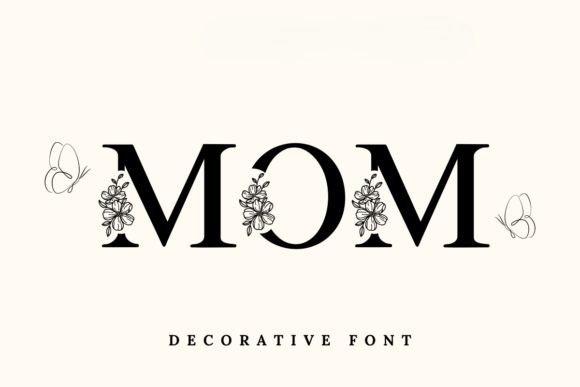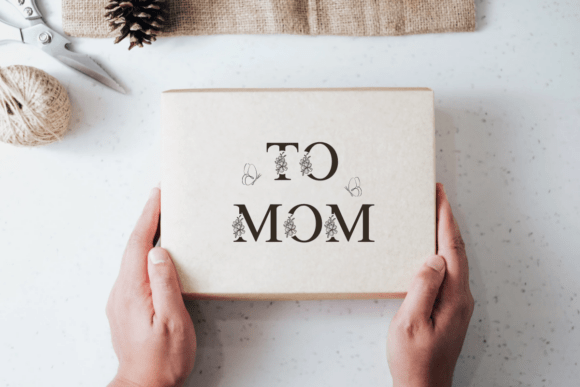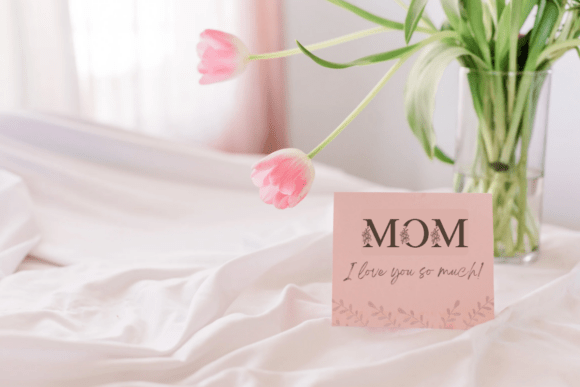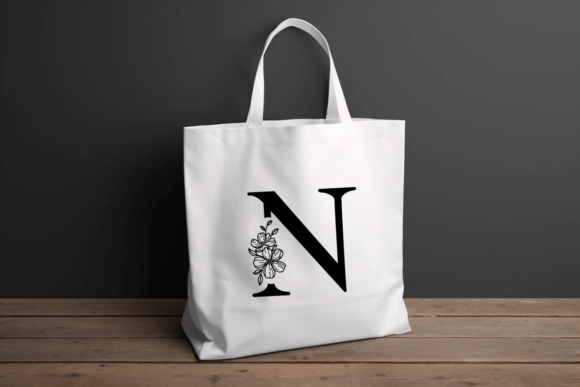
Mom Monogram Font
About the Mom Monogram Font
Let us introduce you to Mom Monogram Font, where timeless design meets modern craftsmanship. Mom Monogram
is an elegant decorative font designed with love in mind. Featuring classic serif letterforms enhanced with delicate floral details, this typeface is perfect for Mother’s Day projects, monogram logos, personalized gifts, and heartfelt stationery. Soft butterflies and floral elements add a graceful, feminine touch that makes every word feel like a warm hug.
Its elegant, feminine personality makes it ideal for branding projects targeting women or motherly themes, particularly in areas like beauty, fashion, or artisanal goods. It excels in short headlines, logos, and packaging where its decorative details shine. Avoid using it for body text or long paragraphs; the intricate detailing would hinder readability.
Consider pairing Mom Monogram with a clean sans-serif like Montserrat for a contemporary contrast, or a classic serif like Garamond for a more traditional feel. A simple script font could also complement its decorative nature, adding a layer of handwritten charm.
The font’s inherent softness makes it unsuitable for projects requiring a bold or modern aesthetic. Its decorative elements are best showcased in applications that allow for a graceful presentation, emphasizing its delicate and heartfelt character.
Mom Monogram Font Usage Examples
Mom Monogram Font Example